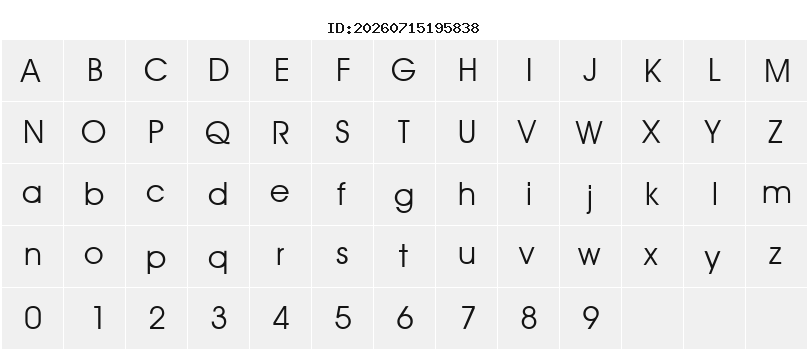
Avant Guard Preview
• Font Name: Avant Guard
• Full Font Name: Avant Guard
About Avant Guard.ttf
Avant Guard.ttf is a modern, elegant sans-serif font designed for ultimate readability and visual harmony. Perfect for branding, headlines, web design, and print materials.